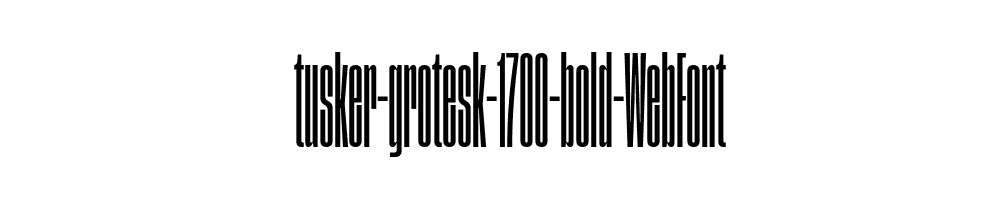
tusker-grotesk-1700-bold-WebFont
About tusker-grotesk-1700-bold-WebFont
Font Weight Name: tusker-grotesk-1700-bold-WebFont, designed by an unknown designer. This font is part of the Tusker Grotesk family, licensed with a standard license, and manufactured by an anonymous company. The current version is undisclosed.
When analyzing the font from the provided image, the following typographic terms can be applied:
Aperture: The open areas in characters like ‘e’ or ‘a’ are wide, allowing for easy readability.
Apex: The top points of letters like ‘A’ or ‘M’ are sharp and well-defined.
Arc: The curves in characters like ‘C’ or ‘O’ are smooth and rounded.
Arm: The horizontal stroke in letters like ‘F’ or ‘E’ is sturdy and gives the font a bold appearance.
Ascender: The part of a lowercase letter that extends above the x-height is tall and prominent in this font.
Axis: The vertical axis of the font is strong and gives it a balanced look.
This font can be classified as Neutral – Expressive, blending a sleek design with a touch of personality. It balances seriousness with friendliness, making it suitable for a wide range of design projects. The font’s structure is solid and well-defined, with sharp apexes and smooth arcs that add to its elegance. The weight of the font is bold, giving it a strong presence on the page.
In conclusion, tusker-grotesk-1700-bold-WebFont is a versatile typeface that combines elements of classic and progressive design. Its clean lines and balanced proportions make it a reliable choice for various applications, from branding to editorial design. With a hint of expressiveness and a touch of elegance, this font is sure to make a statement in any project.